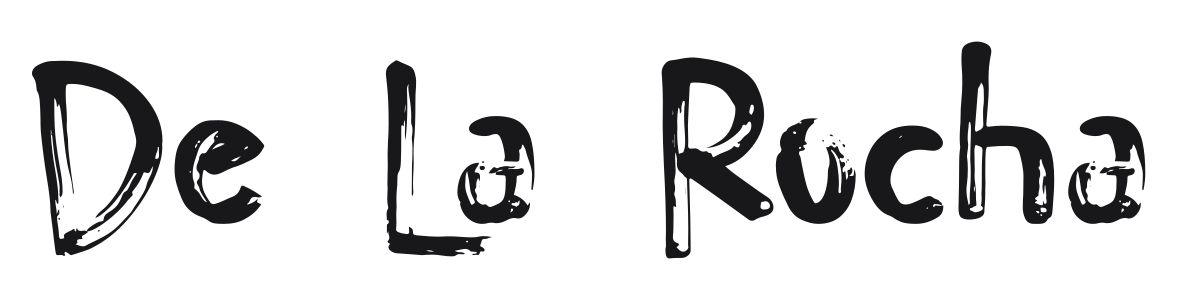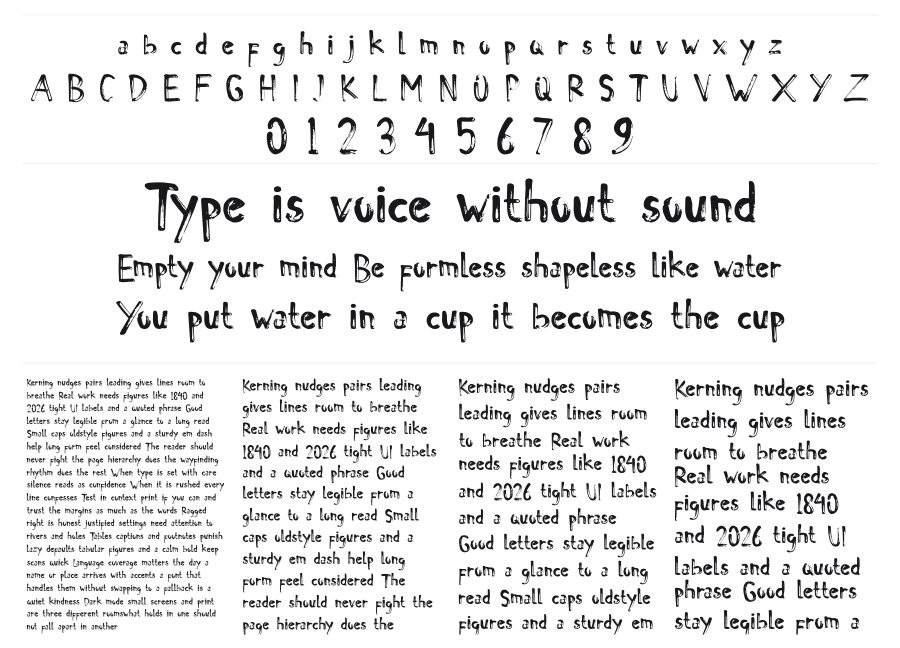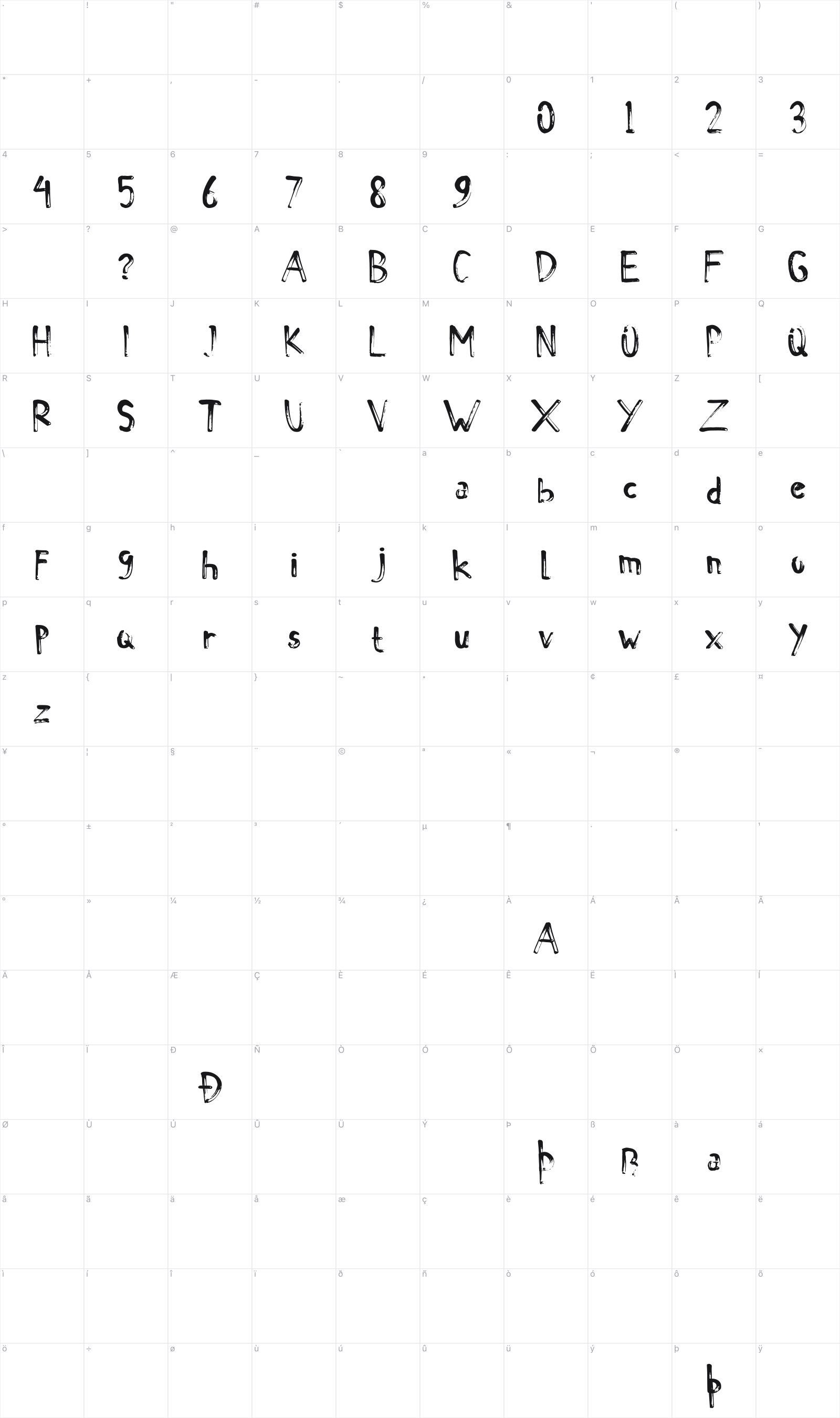
De La Rocha
De La Rocha is a heavy distressed sans with a raw, ink-stamped quality that feels pulled straight from a worn rubber stamp or degraded screen print. The rounded structure keeps it approachable while the rough, eroded edges push it firmly into grungy territory. Strong at large sizes for music branding, poster headlines, and anything that needs a handmade street aesthetic.